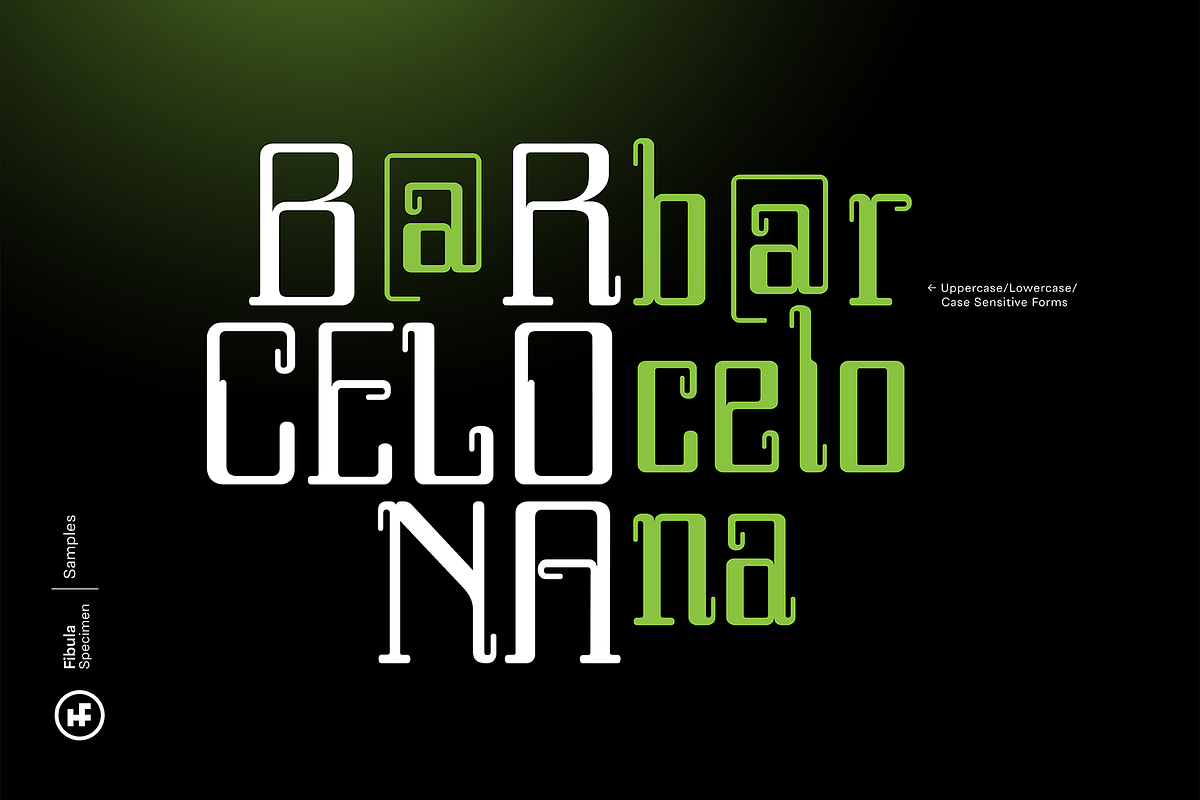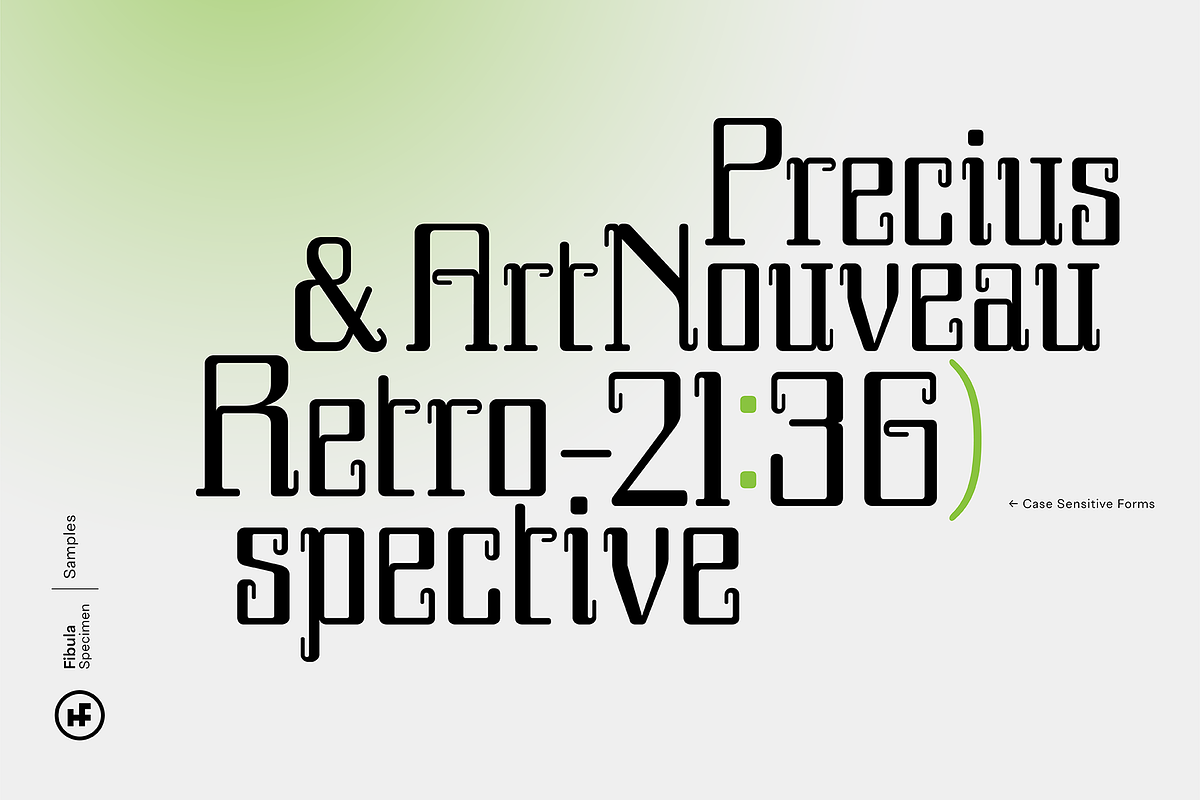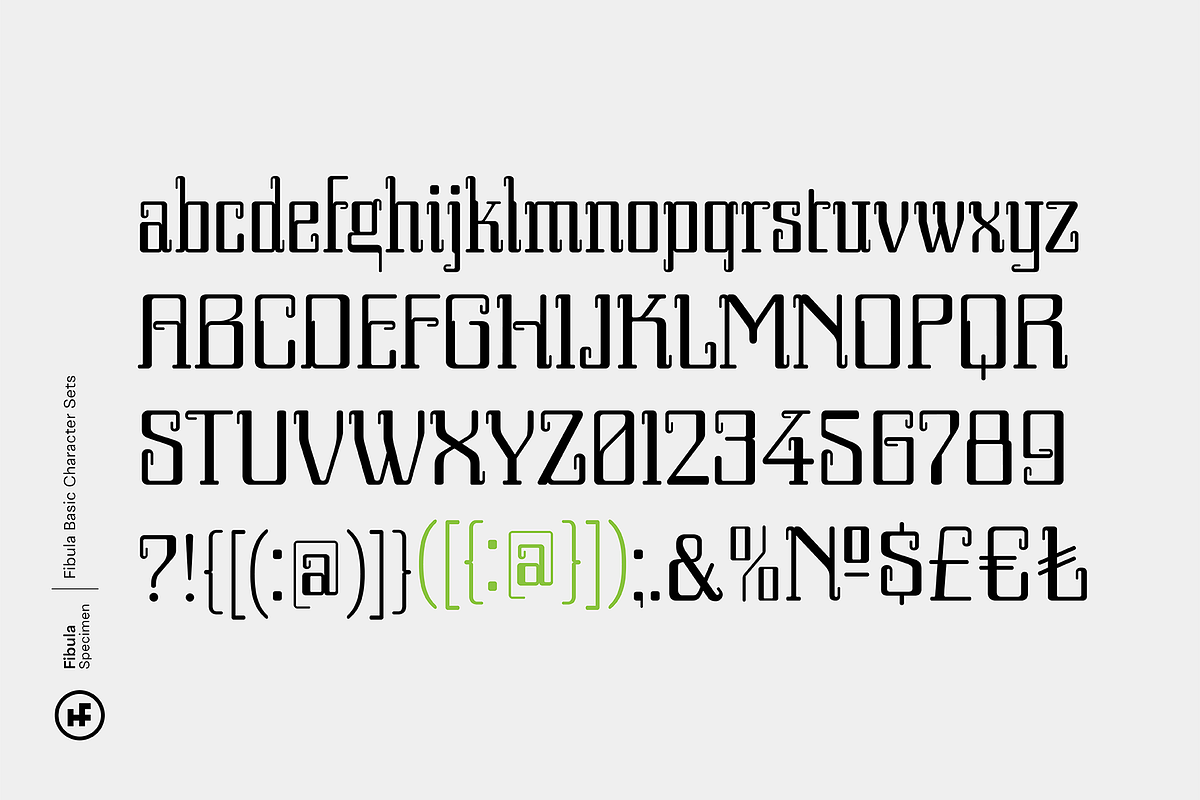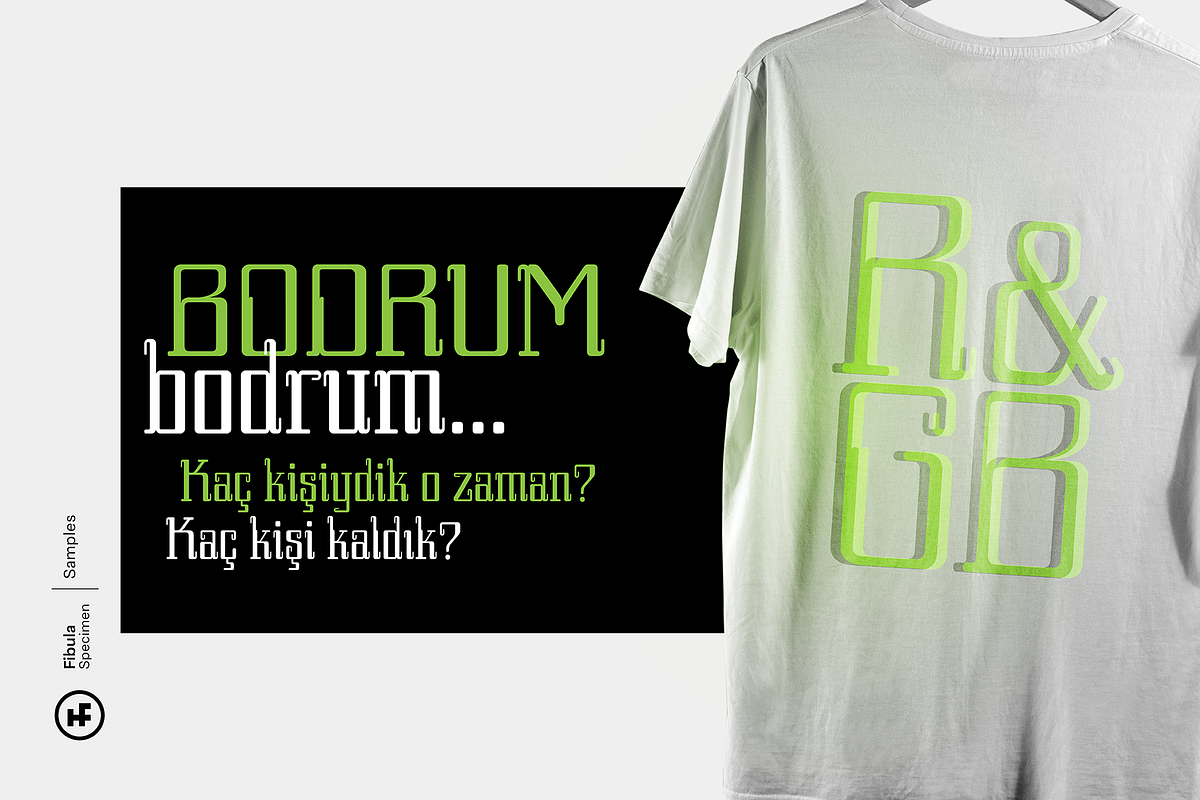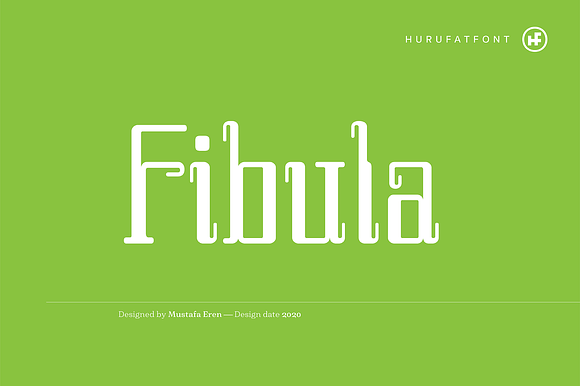
Fibula Display Font
"Fibula" has a surprising and lively effect designed on the basis of the safety pin form. Fibula offers designers creative alternatives to create brands, packaging and titles.
Fibula Display Font by Hurufatfont fits naturally into Branding, posters, packaging, typography.